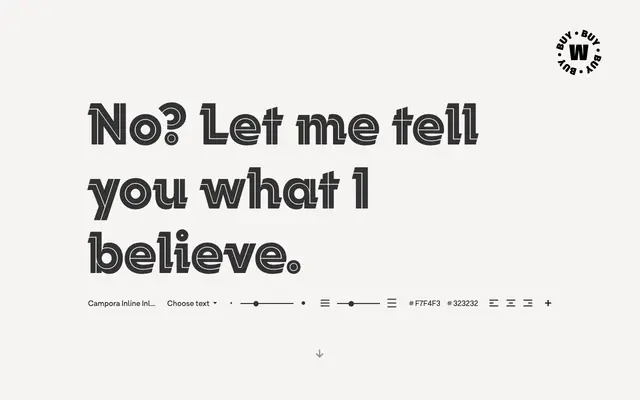
Campora
A geometric display family by Salvador Rodriguez, blending the sharp angles of Dynamo with the landmark ligature system of Avant Garde Gothic.
Inspired by a hand-painted store sign spotted in Bologna, this family combines the angular sharpness of Dynamo with the geometric structure and alternate ligatures associated with Avant Garde Gothic. The family spans 19 styles across three subfamilies: Campora, Campora Classic and a single decorative Campora Inline, each sharing a nine-weight range from Thin to Heavy. The OpenType ligature features are a central part of the design's character, making it well suited to headlines, logotypes and display work.
A geometric display family derived from a mashup of Dynamo and Avant Garde, combining sharp geometric construction with alternate ligatures; its decorative Inline variant reinforces its display-first intent.